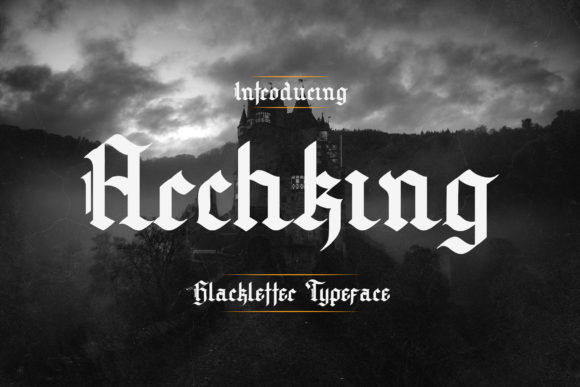
Dive into the Realm of Blackletter Elegance: Introducing Archking Font, the Ultimate Choice for Academic Excellence
In the world of fonts, Archking reigns supreme as a modern blackletter masterpiece that sparks both visual delight and intellectual intrigue. Crafted with meticulous precision by the renowned TypeFactory, this font stands as a testament to the power of typography in elevating academic posters to new heights of brilliance.
Unleash Your Inner Genius: Archking, the Font That Inspires Academic Brilliance
Archking's intricate lines and captivating letterforms are meticulously designed to capture the essence of academic discourse. Each stroke, each curve, each flourish exudes an air of erudition, inviting readers to delve deeper into the depths of your scholarly work. With Archking as your font of choice, your academic posters will command attention and convey an aura of profound intellect.
Beyond Mere Aesthetics: Archking's Contribution to Clarity and Impact
Archking's visual prowess extends beyond mere aesthetics. Its carefully crafted glyphs ensure exceptional readability, even in the most complex academic contexts. Your ideas will shine with clarity, allowing your audience to grasp the intricacies of your research with ease. Furthermore, Archking's distinctive blackletter style adds a touch of visual intrigue, keeping your readers engaged and eager to explore your work in greater detail.
A Font That Transcends Disciplines: Archking's Universal Appeal
Archking's versatility knows no bounds, making it the perfect font for a wide range of academic endeavors. Whether your research delves into the intricacies of history, the complexities of science, or the nuances of literature, Archking adapts effortlessly, enhancing your message with its timeless elegance. Its ability to seamlessly blend with diverse content ensures that your academic posters stand out in any field.
Archking: A Font That Speaks Volumes About Your Academic Prowess
With Archking as your font companion, your academic posters will exude an air of sophistication and scholarly rigor. Its captivating blackletter style commands attention, while its exceptional readability ensures that your message is delivered with clarity and impact. Elevate your academic pursuits to new heights of excellence with Archking, the font that truly sets your work apart.